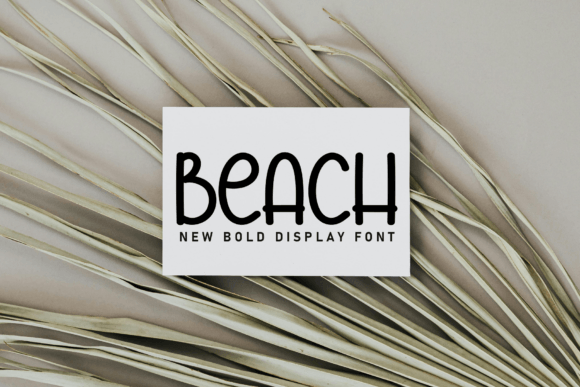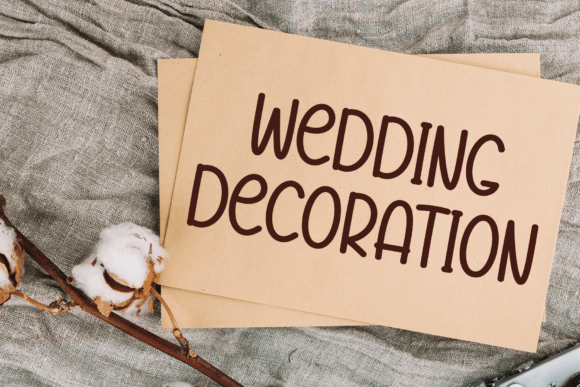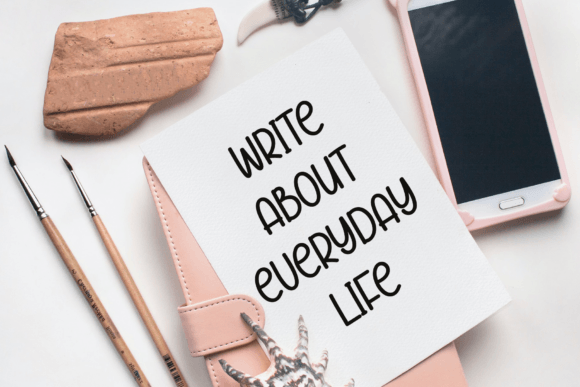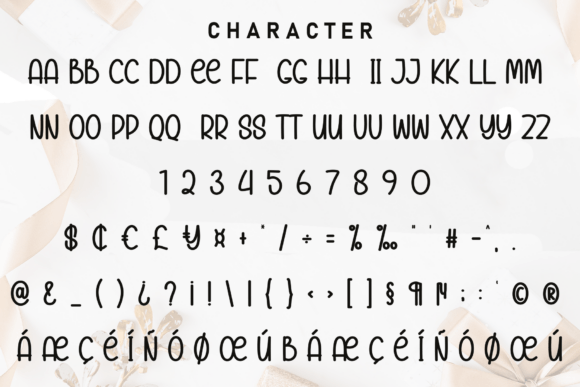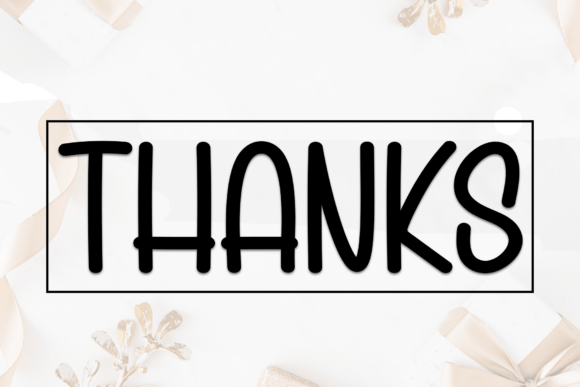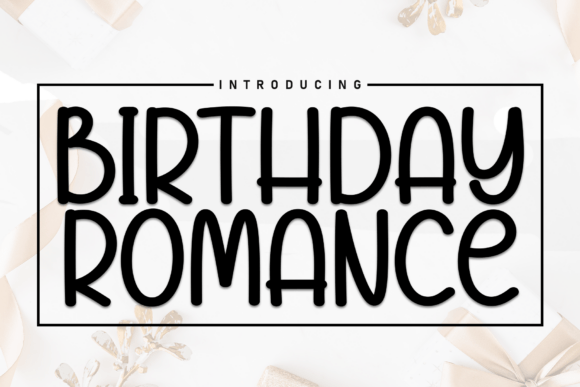
The Birth of a Romantic Font: A Designer’s Delight
I’ll never forget the time I was working on a project for a client who wanted a custom birthday card with a playful, energetic vibe. I had been searching for the perfect font for hours, but nothing seemed quite right. That was when I stumbled upon the Birthday Romance Font. It was love at first sight! ✨
This playful, handwritten font has a casual, sporty feel that’s perfect for making your text stand out. It’s like it was drawn with a bold marker, giving it a fun and energetic personality. In this article, I’ll share my honest review of the Birthday Romance Font, provide a practical guide on how to use it, and explore similar fonts that you might enjoy.
- ✨ Playful and energetic vibe: The Birthday Romance Font has a unique, hand-drawn feel that’s perfect for projects that need a fun and casual touch.
- ✅ Easily readable: Despite its playful nature, the font is surprisingly easy to read, making it perfect for longer texts.
- 💃 Versatile: The font works well for a variety of projects, from birthday cards to social media graphics.
While the Birthday Romance Font is amazing, it’s not perfect. Here are a few things to keep in mind:
- 🤔 Limited formal use: Due to its playful nature, this font might not be the best choice for formal projects or professional documents.
- ⚠️ Some letter variations: While the font has a range of glyphs and stylistic alternates, some letters might not have as many variations as you’d like.
The Designer Inspiration Behind Birthday Romance
The Birthday Romance Font was designed with the intention of creating a playful, energetic font that’s perfect for everyday use. The designer wanted to create a font that would bring a smile to people’s faces and add a touch of whimsy to their projects.
| Font Name | Birthday Romance Font |
| Author | Berkah Shop |
Q: What is the Birthday Romance Font?
A: The Birthday Romance Font is a playful, handwritten font designed to add a fun and energetic touch to your projects.
Q: Is the Birthday Romance Font suitable for formal projects?
A: While the font is amazing, it’s not the best choice for formal projects due to its playful nature.